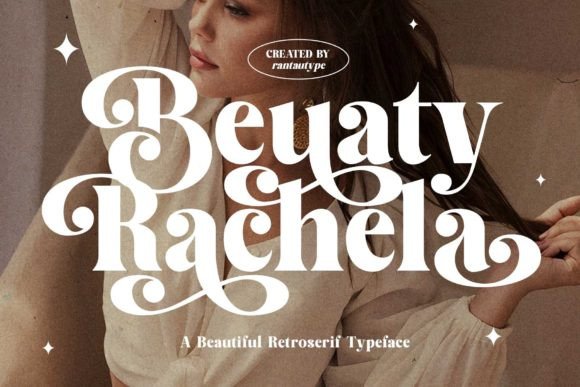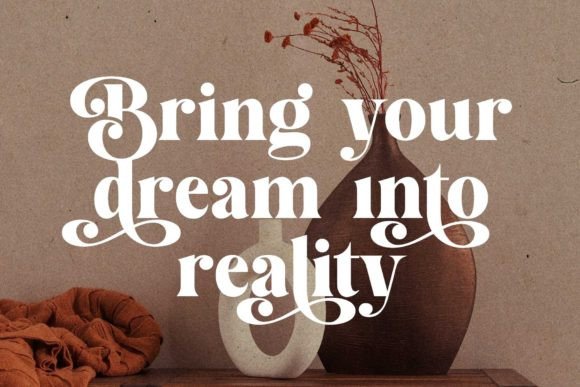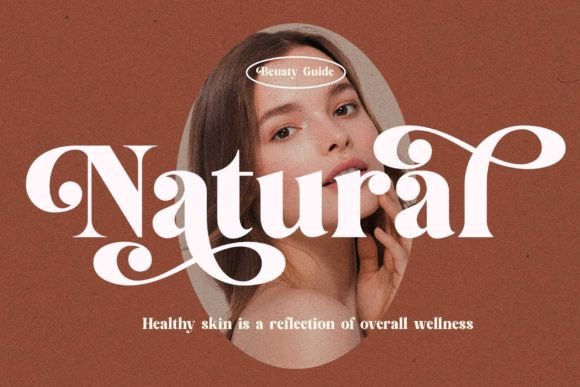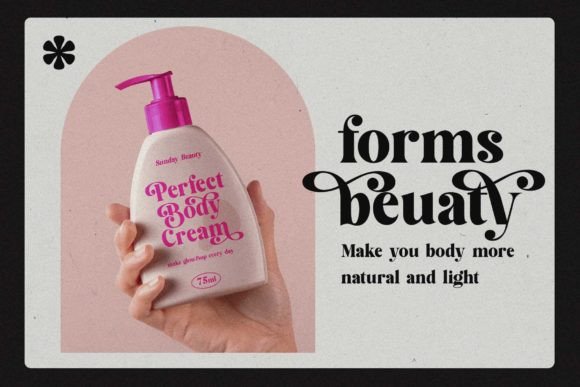
Beauty Rachela Font
About the Beauty Rachela Font
The wait is over! The incredible Beauty Rachela Font is now available for your design toolkit. Proudly present a beautiful vintage serif font called Beauty Rachela by rantautype.
Beauty Rachela is a beautiful font that bold curve that makes it look Unique, elegant, modern, and versatile serif Font. Come with more alternate and ligature you can mix and max to create a more stunning display.
Beauty Rachela – separate in regular and italics, is a beautiful choice for any creative endeavor, creating elegant, modern, chic, lifestyle designs such as logos, titles, covers, branding, display and magazine, and more. Now you have more choice when using Beauty Rachela for typography.
Beauty Rachela Font Usage Examples
Beauty Rachela Font Example